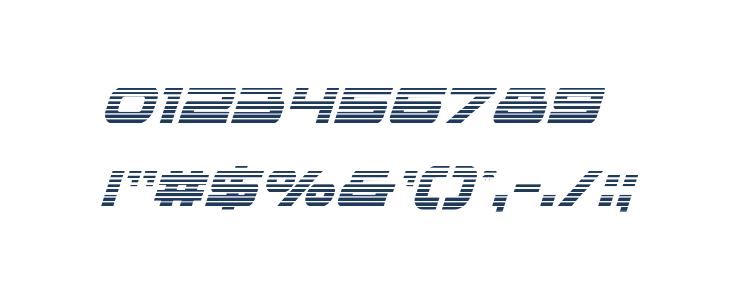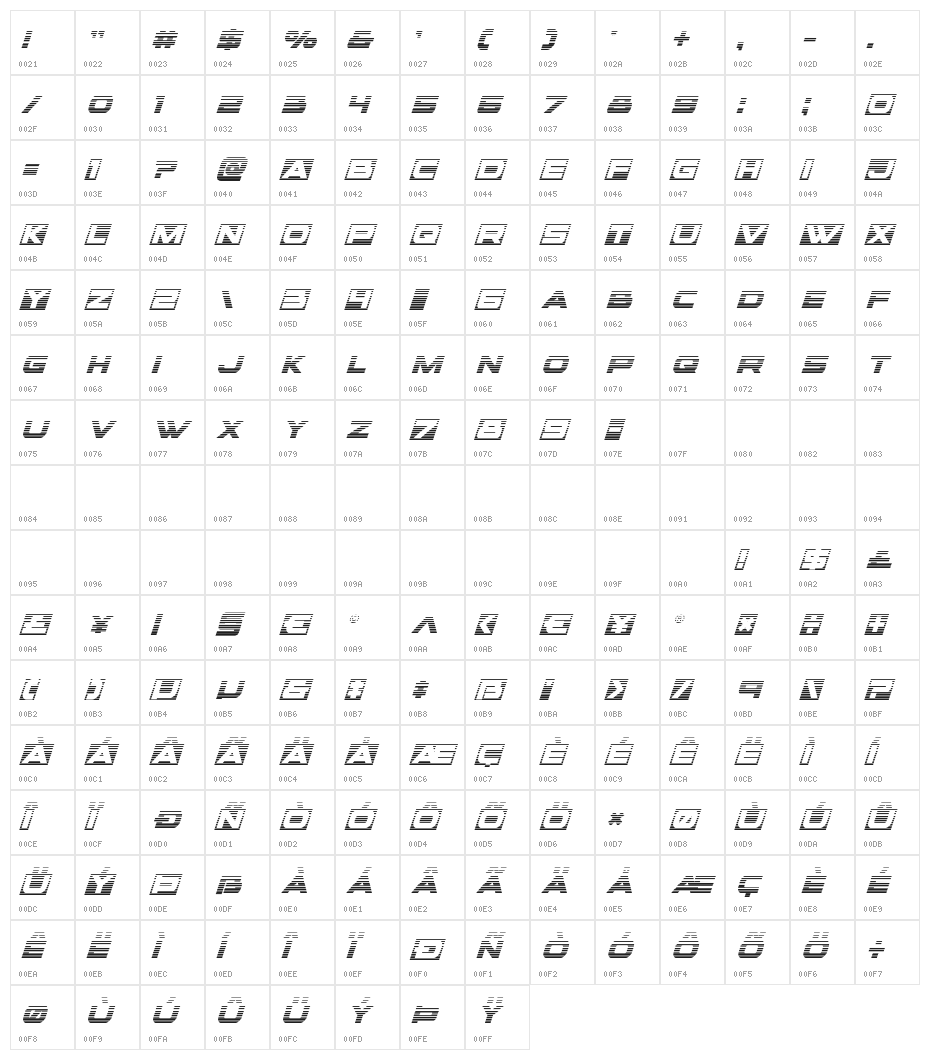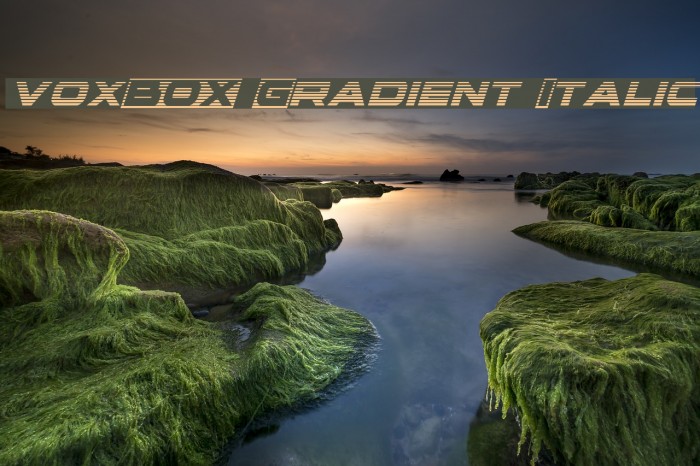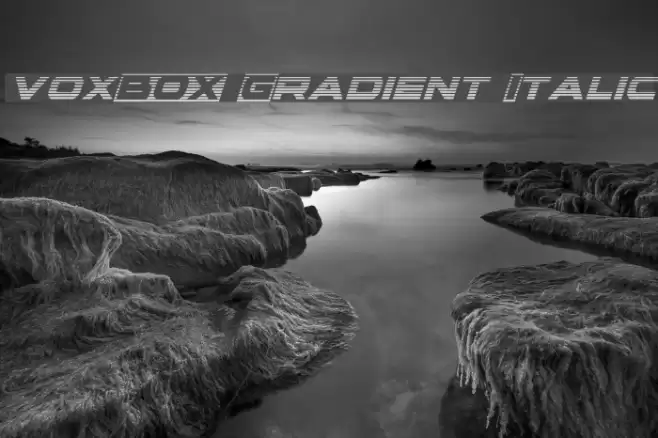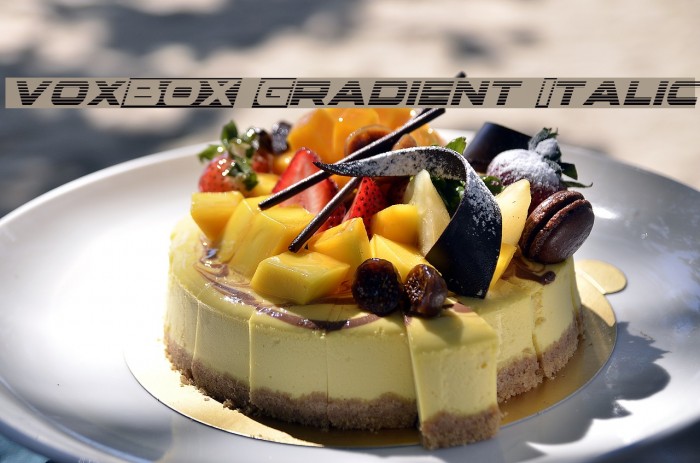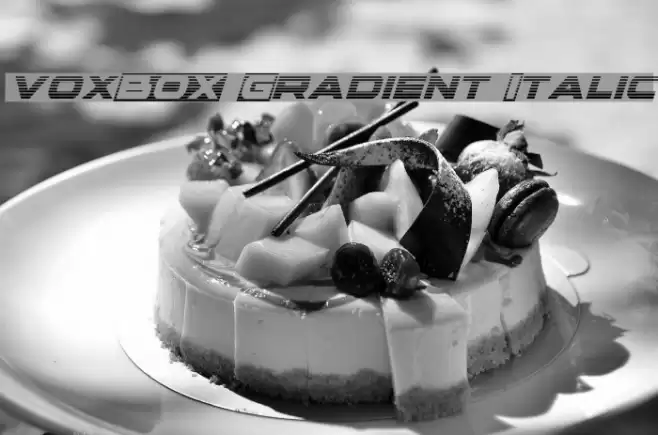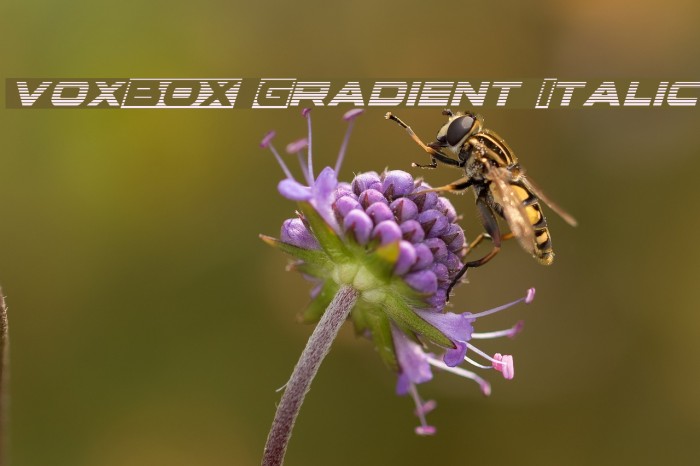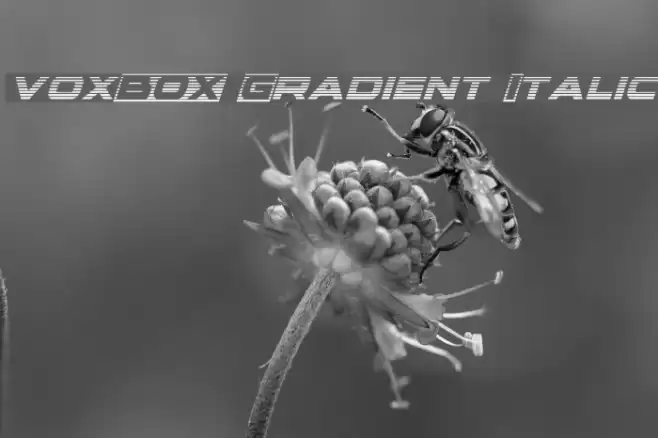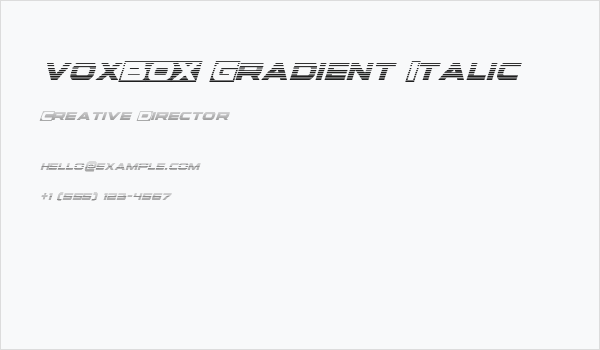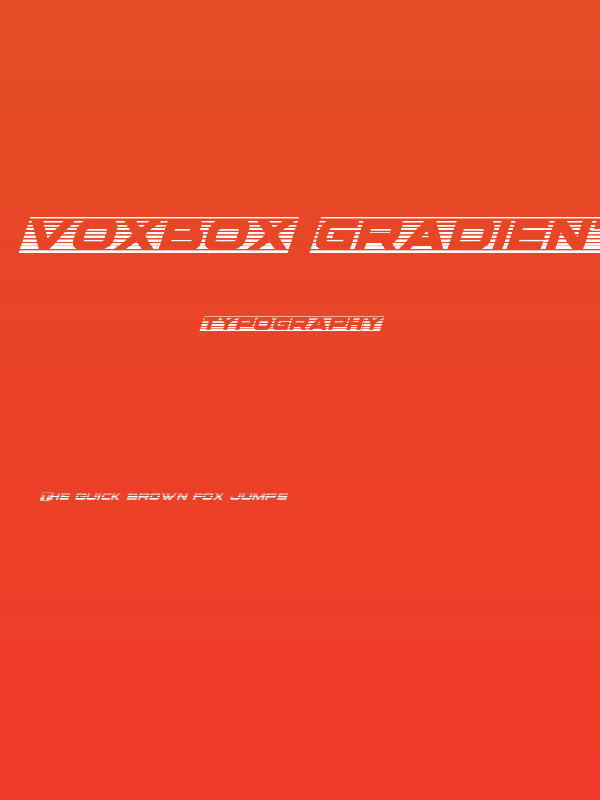
voxBOX Gradient Italic Description
This font features a dynamic and modern design with a distinct italic slant, creating a sense of motion and energy. The characters are composed of horizontal lines that form a gradient effect, giving the font a futuristic and digital appearance. The uppercase and lowercase letters maintain a consistent style, with sharp angles and clean lines that enhance readability while adding a unique visual interest. The numbers and special characters follow the same design principles, ensuring uniformity across all glyphs. This font is ideal for projects that require a bold and contemporary look.